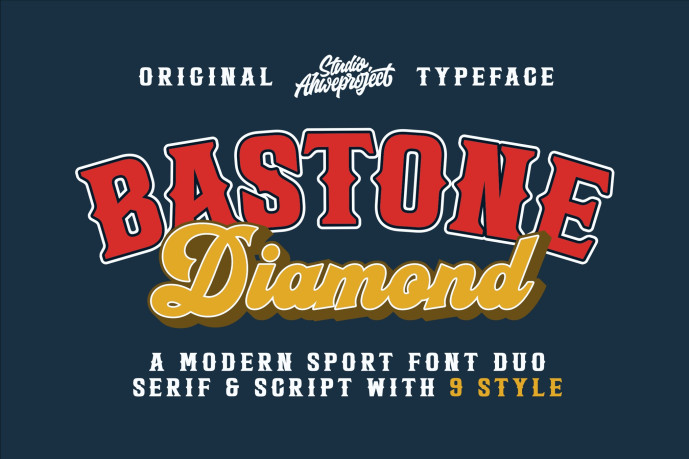
Bastone Diamond Serif Font
Designer: ahweproject
Bastone Diamond Serif Font —a modern sport font duo built for winning visuals. Use the bold serif for power and the elegant script for flair, then mix across 9 styles to craft standout logos, posters, badges, and retro-athletic branding. Versatile, memorable, and ready for your next champion project. Perfect for: college themes, tournament campaigns, and vintage-style packaging. This font is PUA encoded which means you can access all of the glyphs and swashes with ease!
Features :
• Uppercase & lowercase
• Numbers and punctuation
• Multilingual
• Alternates